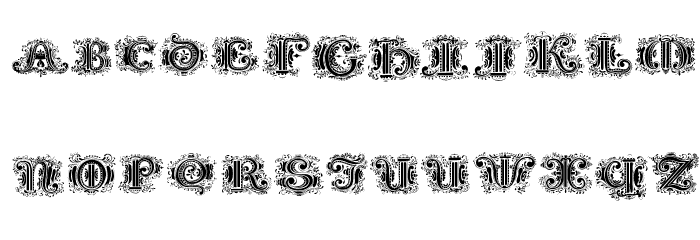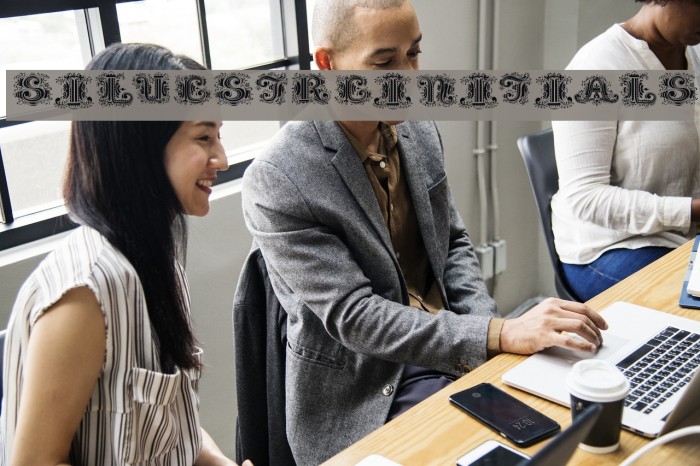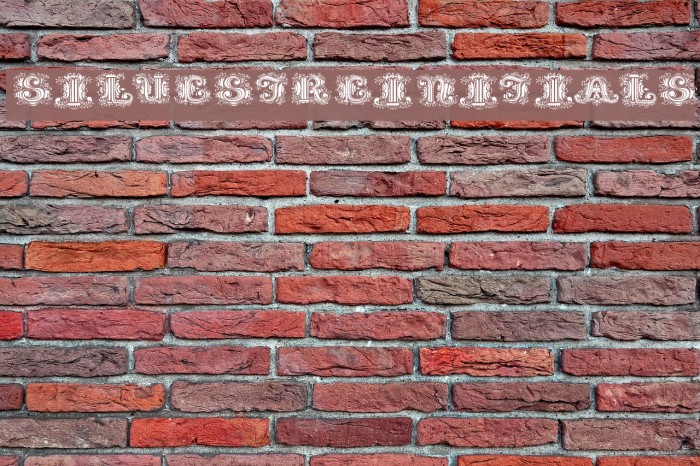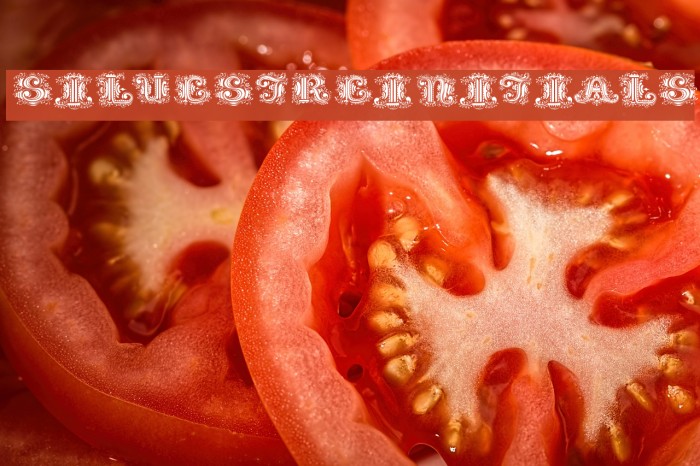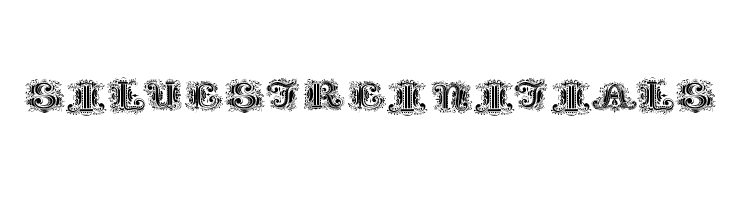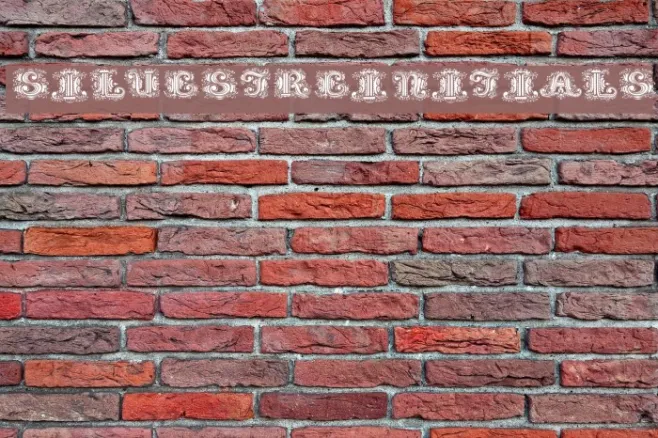
SilvestreInitials Font
This font is a highly decorative and ornate typeface, characterized by intricate floral and swirling embellishments that surround each letter. The design is reminiscent of vintage or Victorian styles, with a strong emphasis on artistic flair and elegance. Each character is uniquely adorned, making the font ideal for projects that require a touch of sophistication and grandeur. The elaborate details may make it less suitable for small text sizes, but it excels in creating striking headlines or titles.
An ornate and decorative font with intricate floral embellishments.
- Proposed Projects: Ideal for wedding invitations, luxury branding, vintage-themed posters, and decorative book covers.
- Overall Style: Vintage